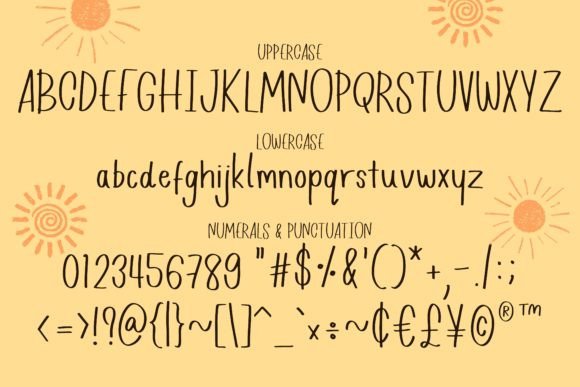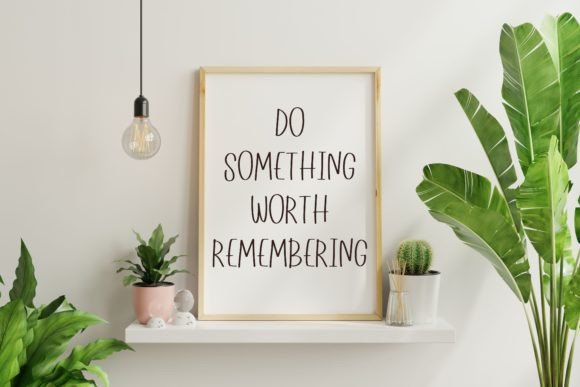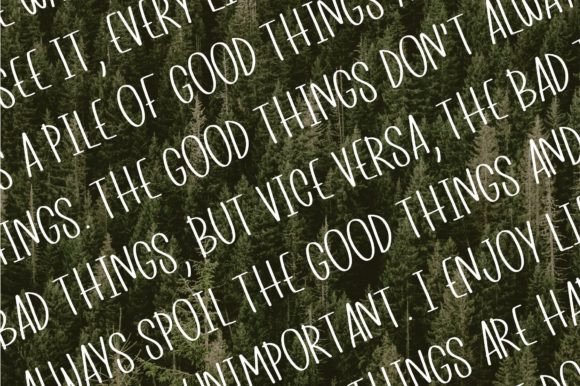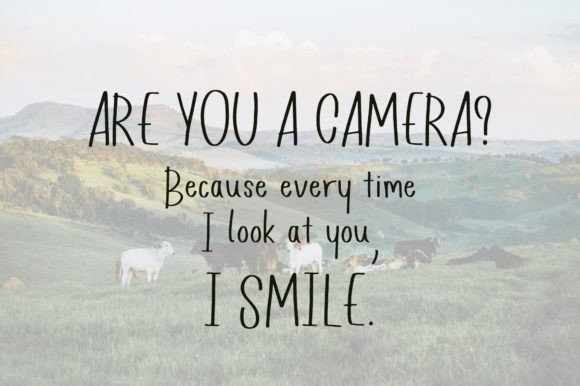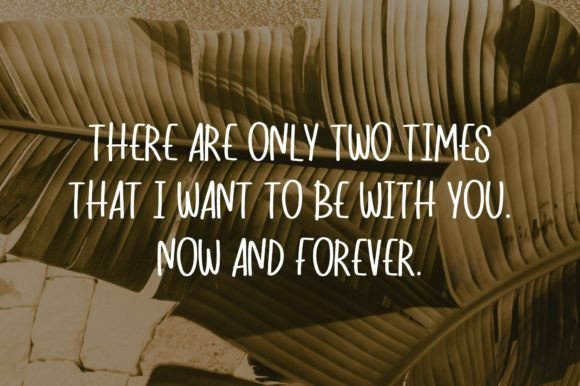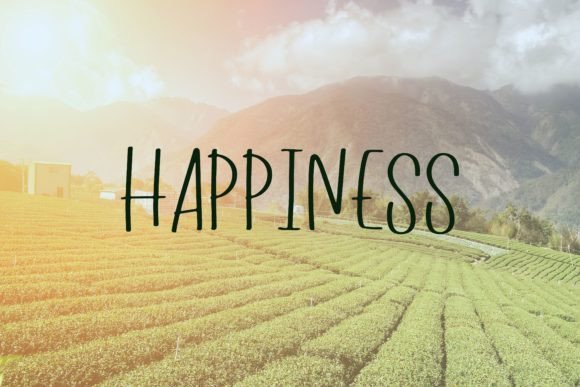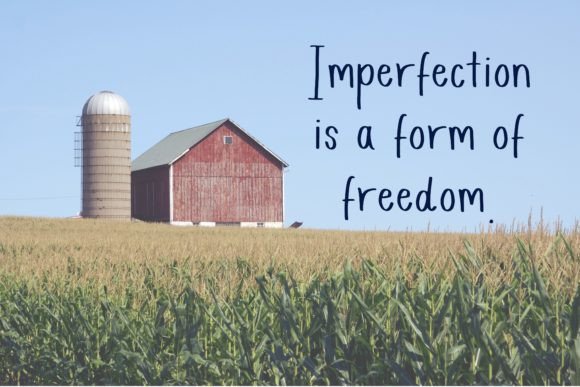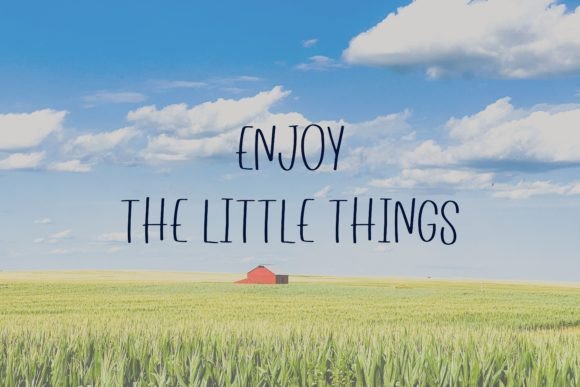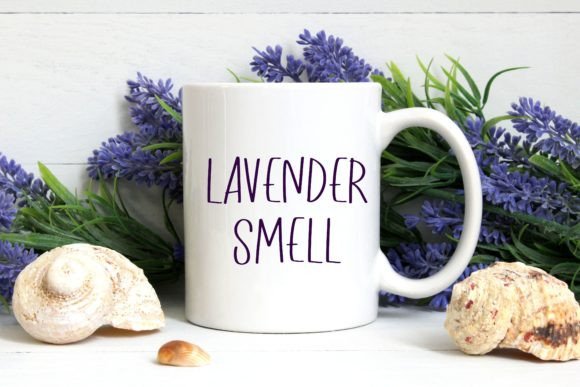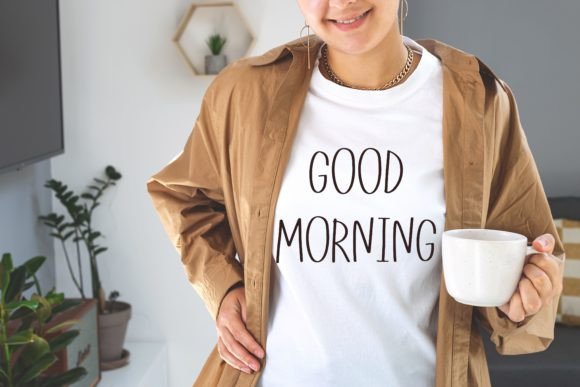
Exquisite Farm Font
About Exquisite Farm Font
Exquisite Farm, a cute and friendly handwritten font, adds a delightful touch to your creative projects. Whether you’re working on quotes, logos, or any lettering product, Exquisite Farm is designed to bring a charming and inviting feel to your designs. The font is PUA encoded, allowing easy access to its extensive set of glyphs and swashes.
The cute and friendly nature of Exquisite Farm makes it a versatile choice for a wide range of applications. Its handwritten style adds a personal and authentic touch to your designs, making them stand out and connect with your audience.
Quirky and playful, Exquisite Farm is well-suited for projects that require a touch of originality and creativity. The font’s PUA encoding ensures that you can effortlessly access all the unique glyphs and swashes, giving you the freedom to explore different design possibilities.
Whether you’re crafting quotes for social media, designing a charming logo, or working on any lettering project, Exquisite Farm is crafted to enhance your creative endeavors. Its cute and friendly aesthetic makes it an excellent choice for adding warmth and character to your designs.
Embrace the charm of Exquisite Farm, and let it be the perfect addition to your font collection. With its PUA encoding and playful handwritten style, this font is ready to bring a touch of cuteness and friendliness to your creative projects.